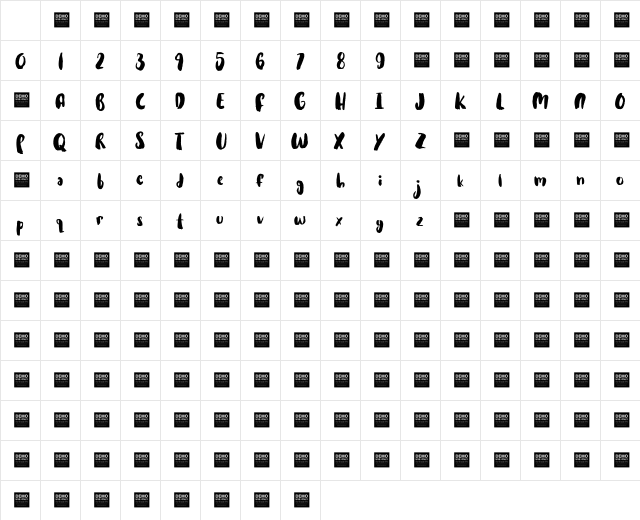
Complete Hot Cakes - Demo Bold glyph index. Displaying only characters natively supported by Hot Cakes - Demo Bold font.
Hot Cakes - Demo is a composed and adaptable typeface that performs quietly and consistently across a wide range of design contexts. Its bold stroke weight gives it real presence on the page.
Who designed the Hot Cakes - Demo Bold font?
This font was published by BLKBK. Check the technical specs section for copyright and designer details.